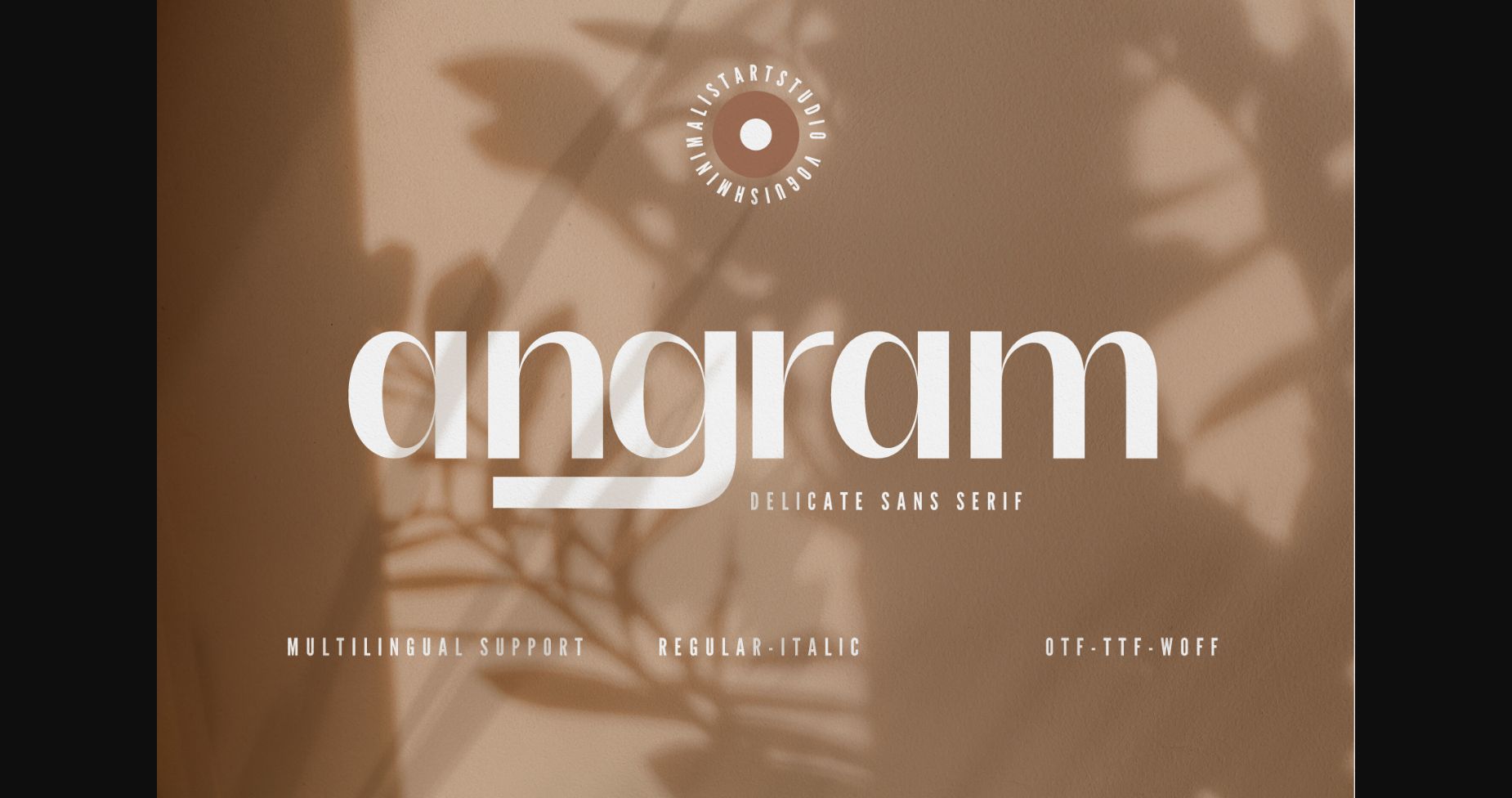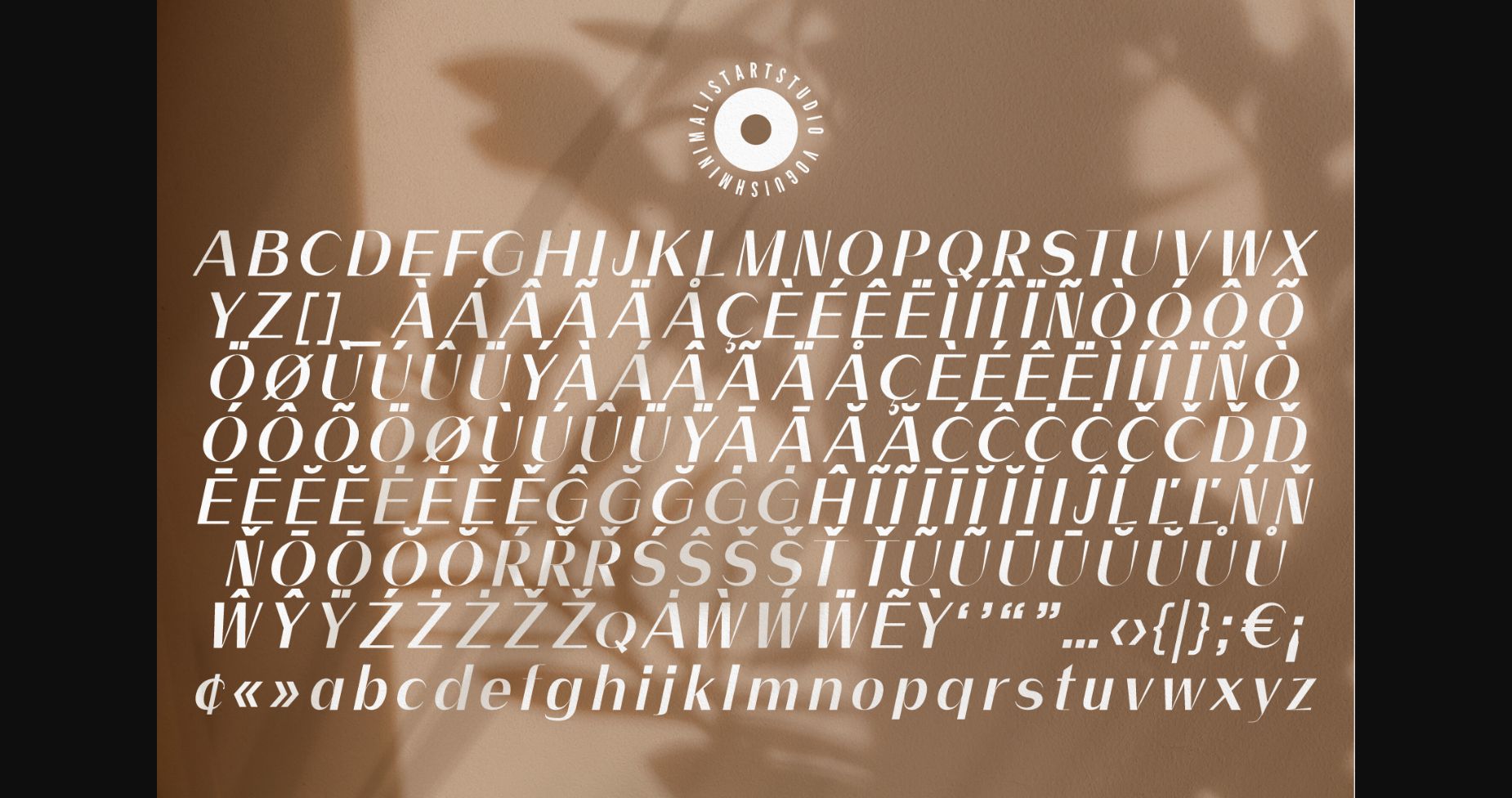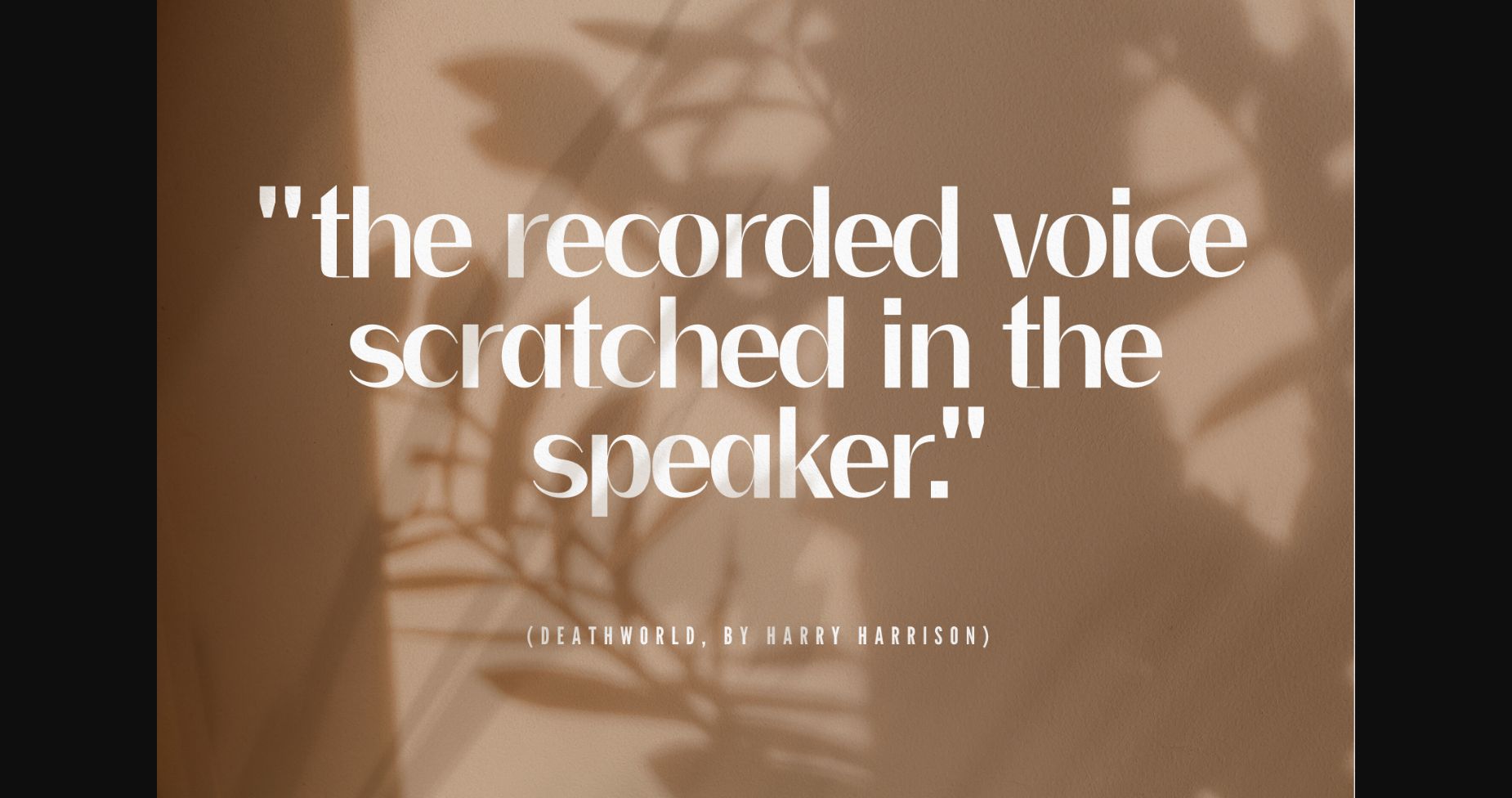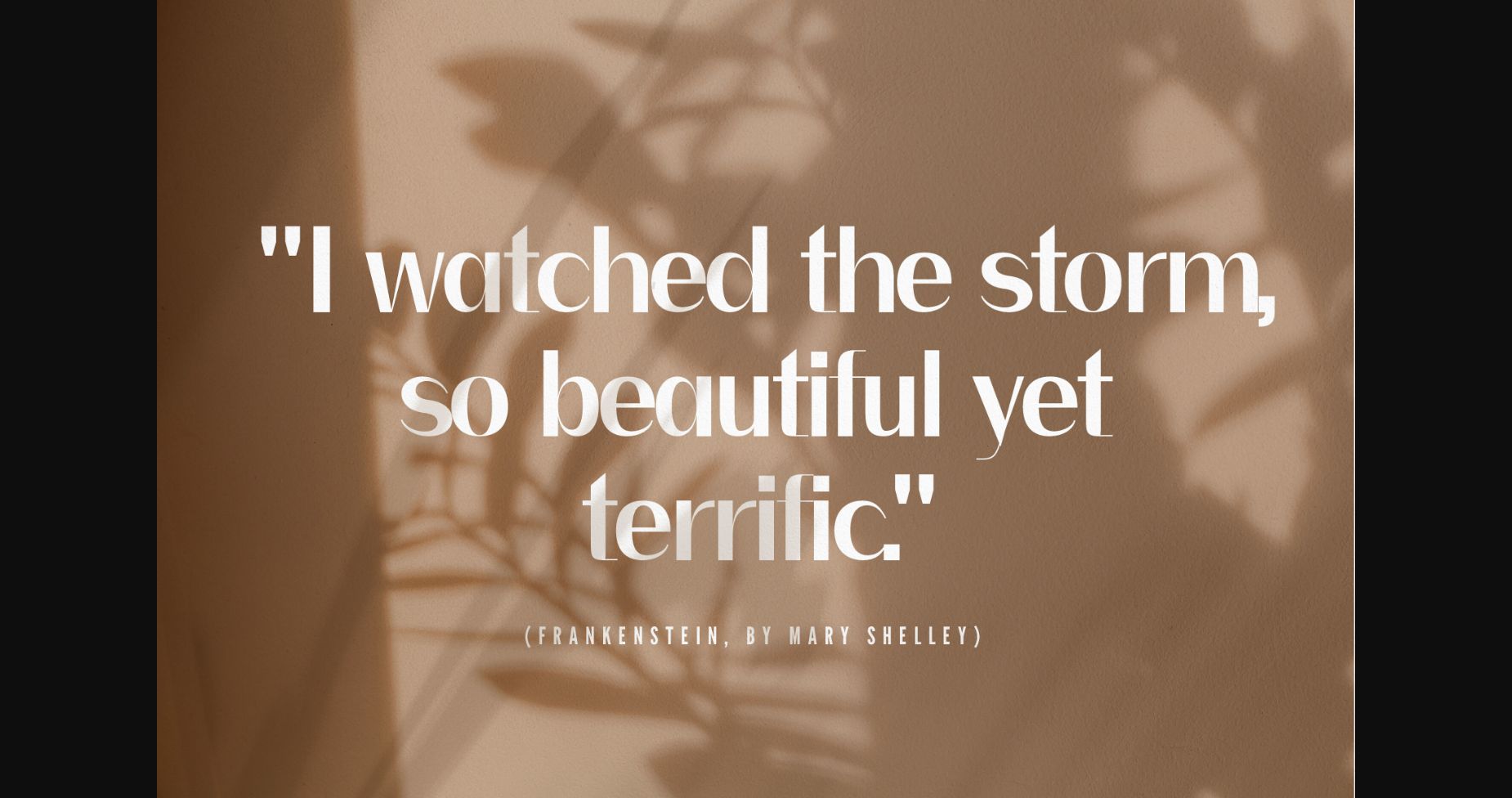
About Angram Font
Angram is a refined, chic, and stylish sans serif typeface. It perfectly suits elegant design projects such as packaging design, cosmetics design, perfume, fashion, jewels, magazines, luxury goods, and many more. This font for sure adds value to any creation.